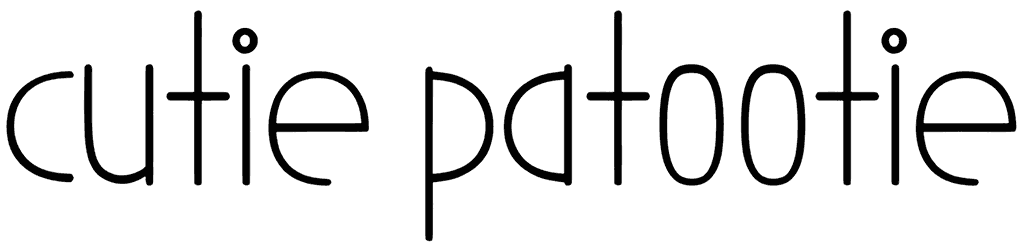
MTF Cutie Patootie Font
Here we come again with a marvelous skinny font such as MTF Cutie Patootie that comes with delicate characters and would look perfectly fit for all of your graphic content like stickers, posters, logos, business cards, o…
Here we come again with a marvelous skinny font such as MTF Cutie Patootie that comes with delicate characters and would look perfectly fit for all of your graphic content like stickers, posters, logos, business cards, or menus. Despite the undeniable fact that uppercase letters are not supported, this handwritten font can give you a hand to share a feeling of precision, softness, and accuracy.